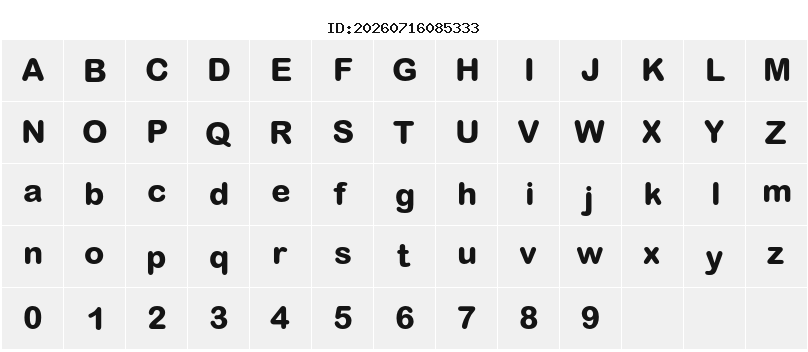
Arial Rounded MT Std Extra Bold Preview
• Font Name: Arial Rounded MT Std Extra Bold
• Full Font Name: ArialRoundedMTStd-ExtraBold
• PostScript Name: ArialRoundedMTStd-ExtraBold
• Manufacturer: Agfa Monotype Corporation
About Arial Rounded MT Std Extra Bold.ttf
Arial Rounded MT Std Extra Bold.ttf is a modern, elegant sans-serif font designed for ultimate readability and visual harmony. Perfect for branding, headlines, web design, and print materials.